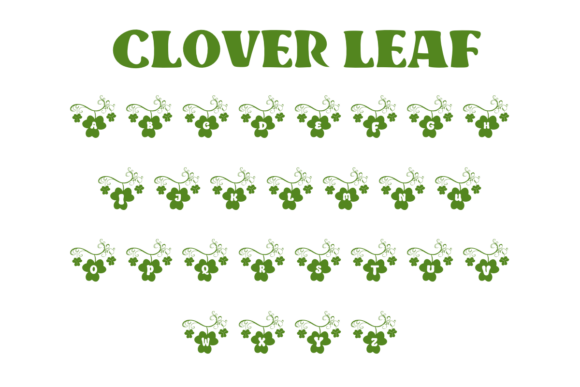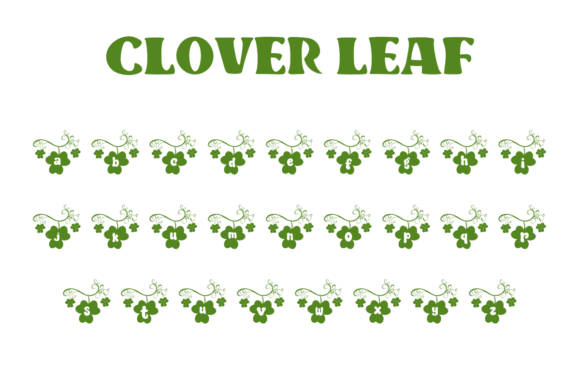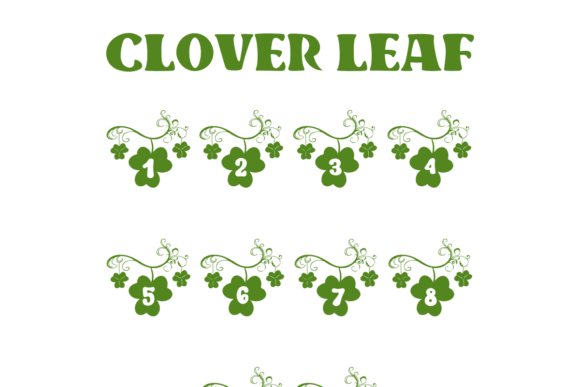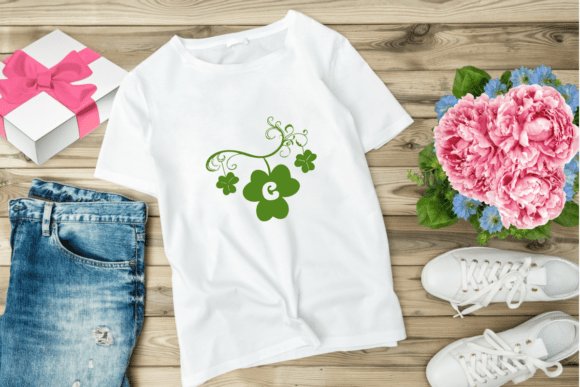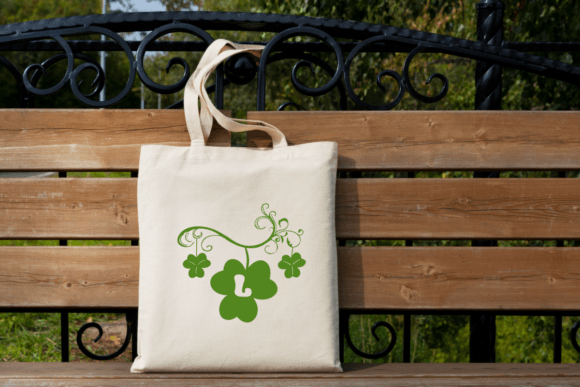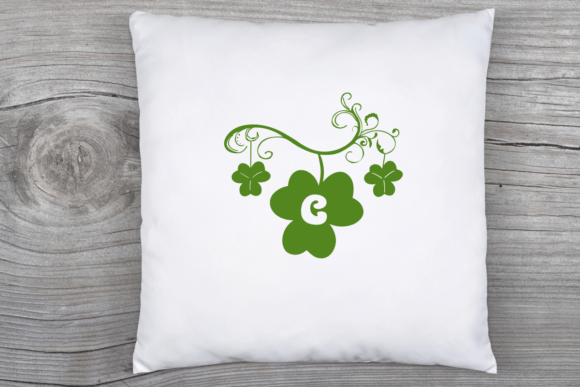
Clover Leaf Font: A Whimsical Decorative Font for Creative Projects
Are you a designer, crafter, or DIY enthusiast looking for a unique and charming font to add a personal touch to your projects? Look no further than the Clover Leaf Font! This decorative font is perfect for a variety of creative endeavors, from taking notes and writing diaries to making greeting cards and designing banners.
What is Clover Leaf Font?
Clover Leaf Font is a beautiful, hand-crafted font that features a whimsical and elegant design. Its distinctive leaf-like shapes and flourishes make it an ideal choice for projects that require a touch of sophistication and charm. Whether you’re creating digital content or handmade crafts, this font is sure to add a special something to your work.
Uses for Clover Leaf Font
One of the best things about Clover Leaf Font is its versatility. You can use it for a wide range of projects, including:
- Note-taking and journaling: Add a touch of elegance to your notes and diary entries with Clover Leaf Font.
- Greeting cards and invitations: Create beautiful, one-of-a-kind cards and invitations for special occasions.
- Banners and signs: Use Clover Leaf Font to create eye-catching banners and signs for parties, events, and more.
- Social media posts: Add a decorative touch to your social media posts and make them stand out.
- Mugs, cards, and shirts: Create personalized gifts and merchandise with Clover Leaf Font.
- Stationery and paper crafts: Use Clover Leaf Font to create beautiful stationery, paper flowers, and other paper crafts.
Why Choose Clover Leaf Font?
So why choose Clover Leaf Font over other decorative fonts? Here are just a few reasons:
- Unique and eye-catching design: Clover Leaf Font features a distinctive and charming design that is sure to grab attention.
- Easy to read: Despite its decorative nature, Clover Leaf Font is still easy to read, making it perfect for both digital and print projects.
- Versatile: Use Clover Leaf Font for a wide range of projects, from digital content to handmade crafts.
- Perfect for DIY projects: Clover Leaf Font is ideal for DIY enthusiasts and crafters who want to add a personal touch to their projects.
Tips for Using Clover Leaf Font
Here are a few tips for getting the most out of Clover Leaf Font:
- Experiment with different colors and textures: Clover Leaf Font looks great in a variety of colors and textures, so don’t be afraid to experiment and find the perfect combination for your project.
- Use it sparingly: While Clover Leaf Font is beautiful, it can be overwhelming if used too much. Use it sparingly to add a touch of elegance to your project.
- Pair it with other fonts: Clover Leaf Font pairs well with other fonts, so feel free to experiment with different combinations to find the perfect look for your project.
Clover Leaf Font is a beautiful and versatile decorative font that is perfect for a wide range of creative projects. Its unique and eye-catching design makes it ideal for designers, crafters, and DIY enthusiasts who want to add a personal touch to their work. Whether you’re creating digital content or handmade crafts, Clover Leaf Font is sure to add a touch of elegance and charm. So why not give it a try and see what amazing projects you can create?